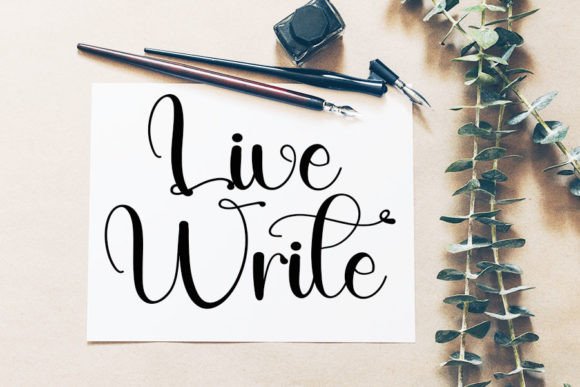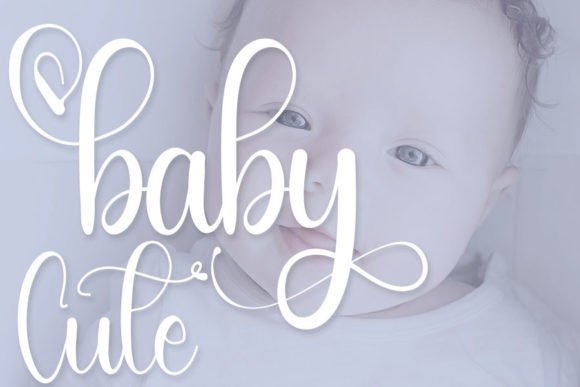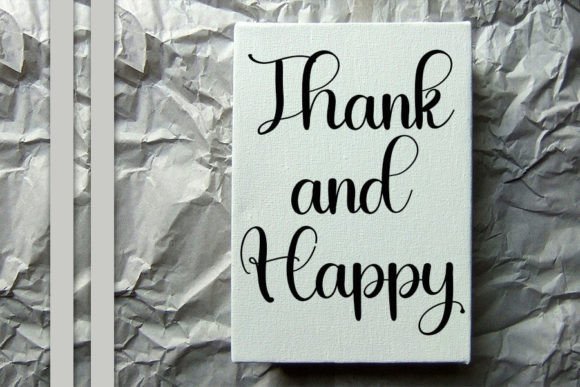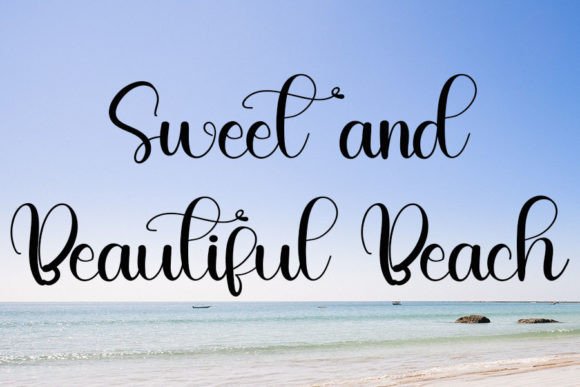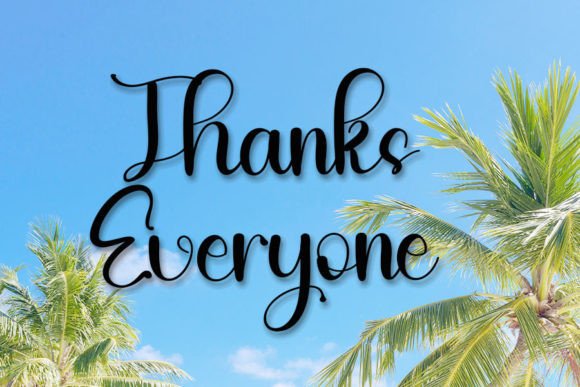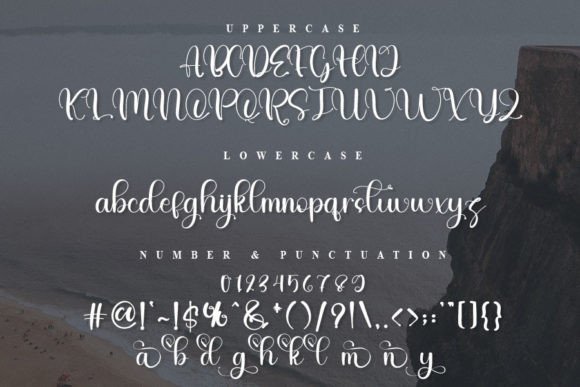
Rain and Beach Font
Romantic Handwritten Script for Elegant and Emotional Designs
If you’re searching for a font that brings warmth, style, and emotion into your projects, Rain and Beach is a perfect choice. This romantic handwritten script has a soft, graceful flow that works beautifully across both personal and professional designs. Whether you’re creating a heartfelt card or branding a boutique, this font adds a dreamy and sophisticated aesthetic.
Its elegant curves and handwritten character make it ideal for creative projects that require a human touch.
Discover Rain and Beach: Enchanting, Soft, and Versatile
Rain and Beach was designed with romance and creativity in mind. The flowing lines and smooth letterforms make it feel personal and expressive. As a result, this romantic handwritten script works well in both print and digital designs.
Its subtle yet stylish appearance ensures your message stands out without overwhelming the design.
Why Designers Love Rain and Beach
Designers appreciate fonts that are not only stylish but also practical. Rain and Beach delivers on both fronts. Here’s why it’s a favorite:
• Elegant handwritten look with a romantic vibe
• Clear legibility even in script format
• Works across various creative applications
• Ideal for emotional, classy, and personal designs
This romantic handwritten script is expressive, yet refined — making it a versatile tool in your font collection.
Whether you’re preparing for a special event or simply want your content to feel more personal, this font will help you achieve that beautifully.
Rain and Beach is more than just a typeface — it’s a design statement filled with emotion and charm. With its handwritten elegance and romantic flow, this romantic handwritten script helps you create visuals that speak directly to the heart.